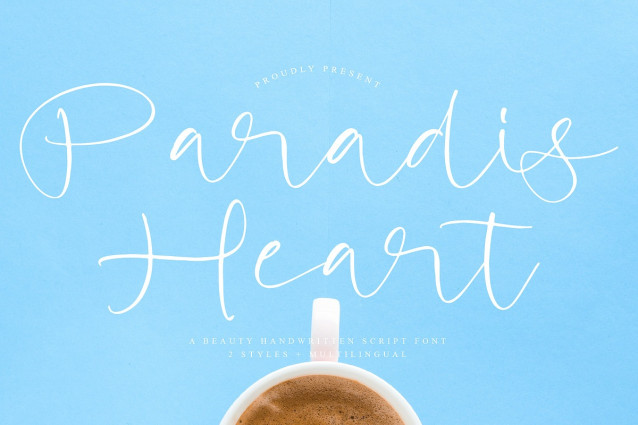
Paradis Heart Font
Paradis Heart Font – A Beauty Handwritten Script Font, from Operatype, perfect for any project like: logos, branding projects, homewares designs, product packaging, mugs, quotes, posters, shopping bags, t-shirts, covers books, business cards, invitation cards, greeting cards, labels, photography, watermarks, special events and all your other luxury projects that require a premium taste.